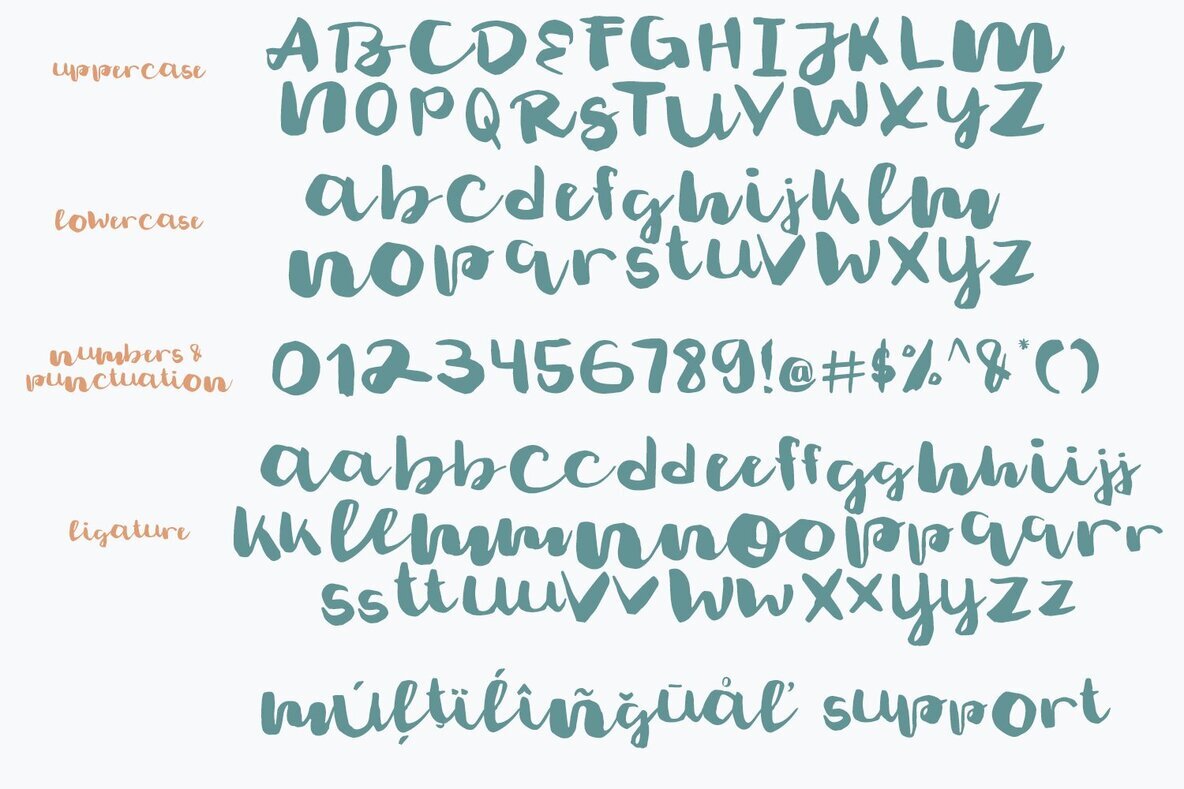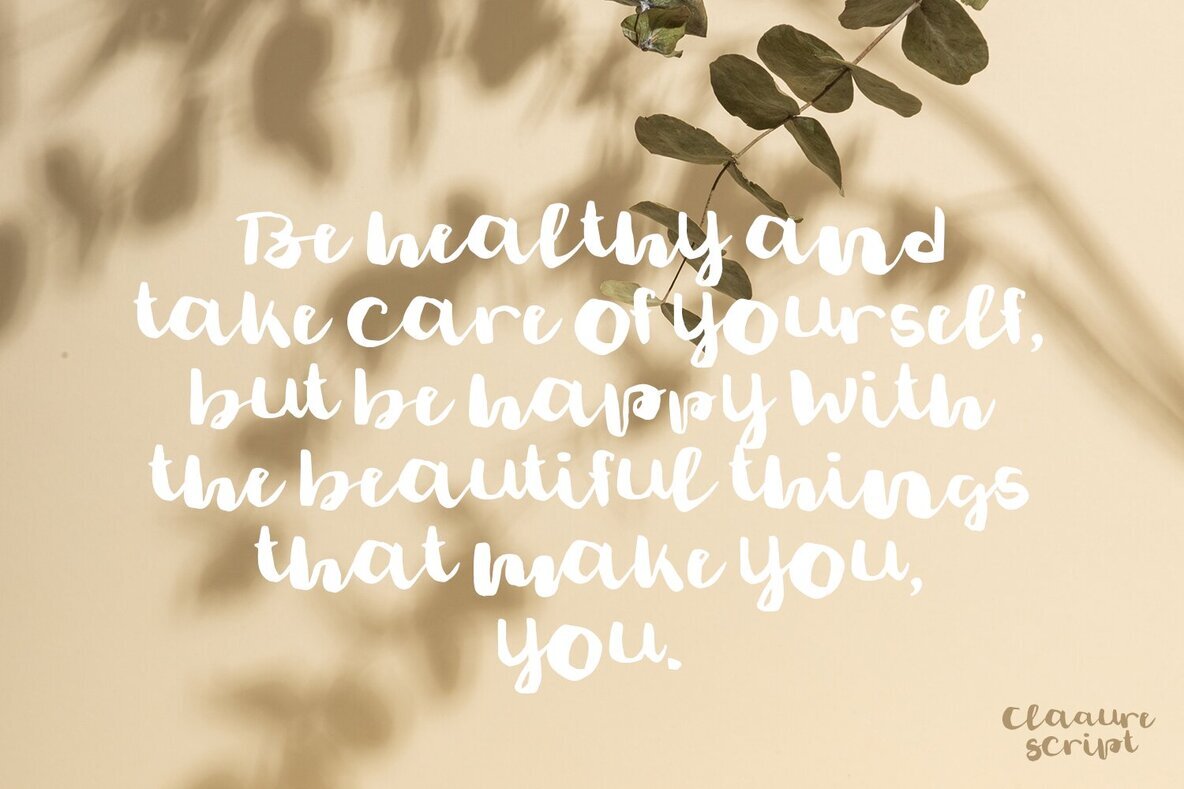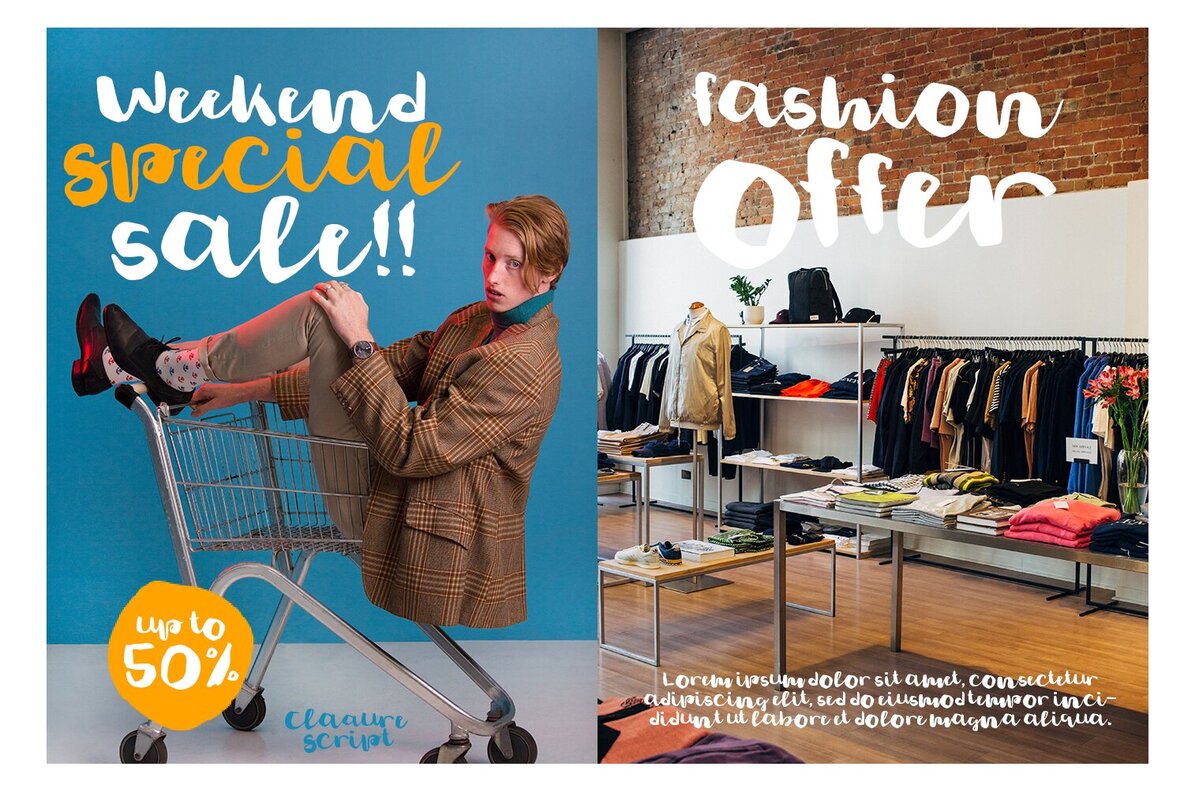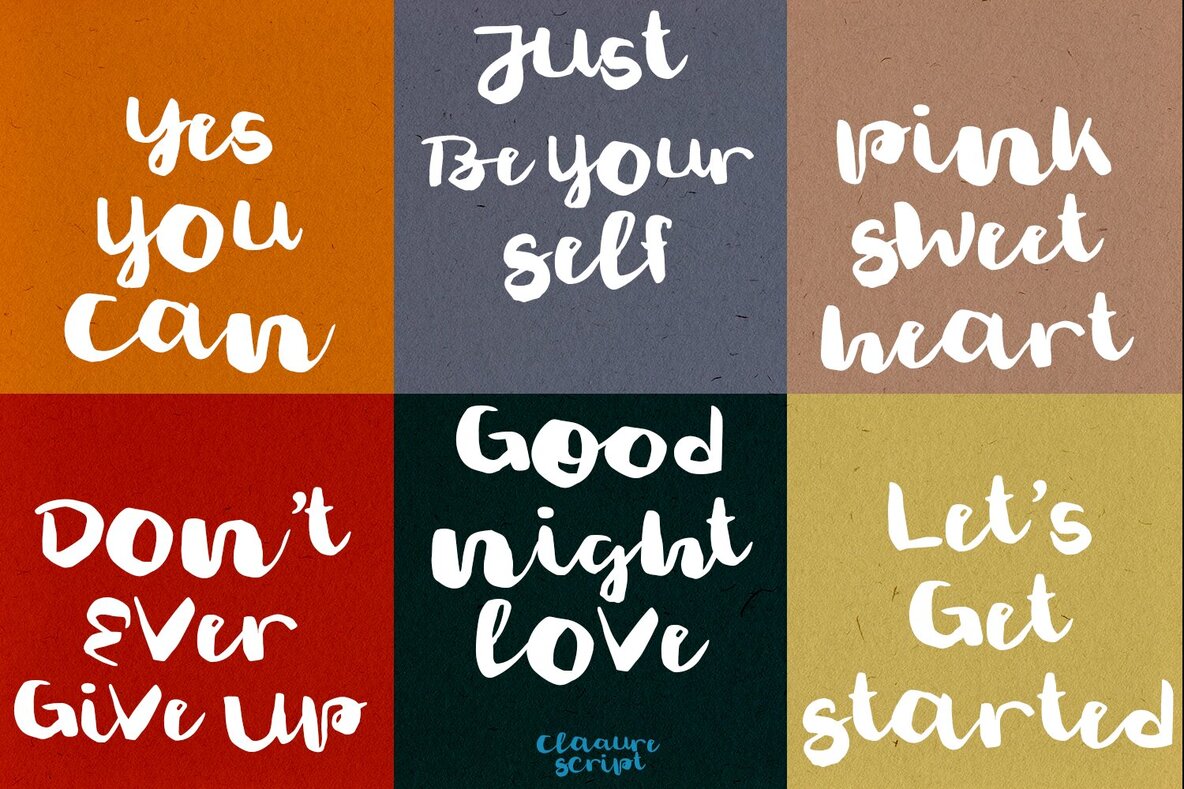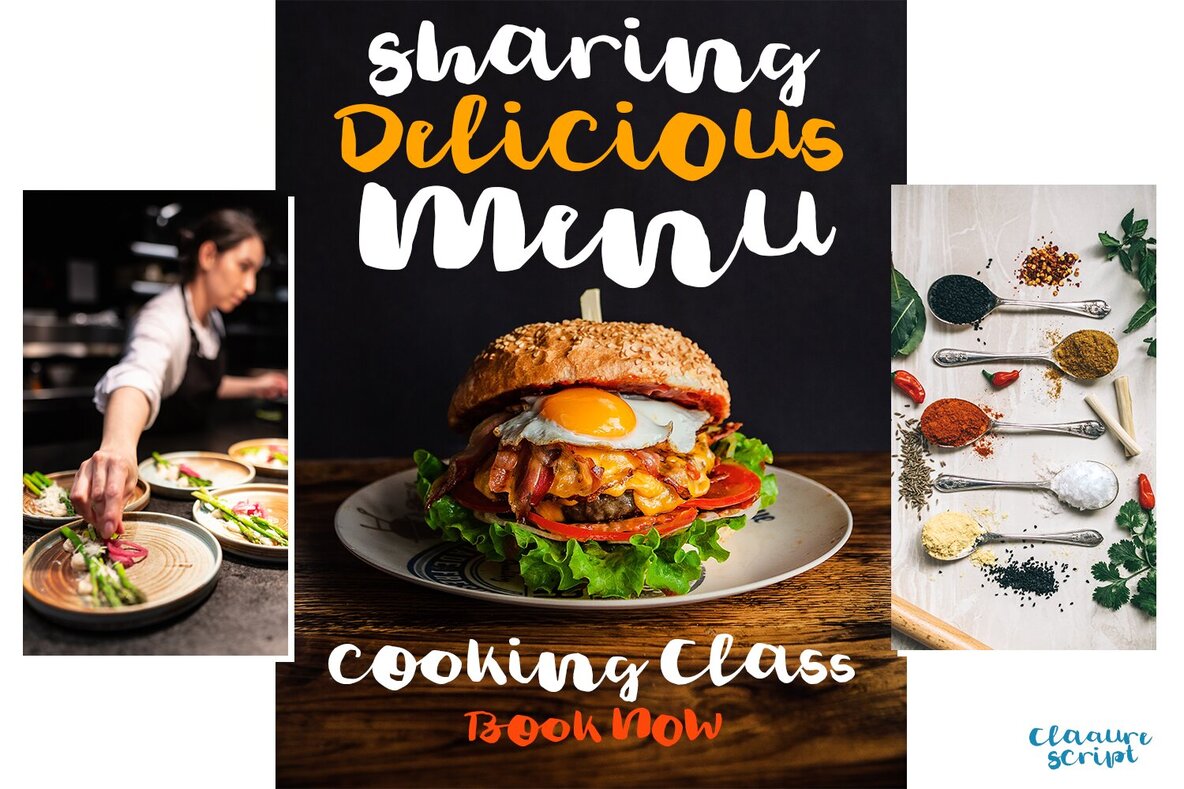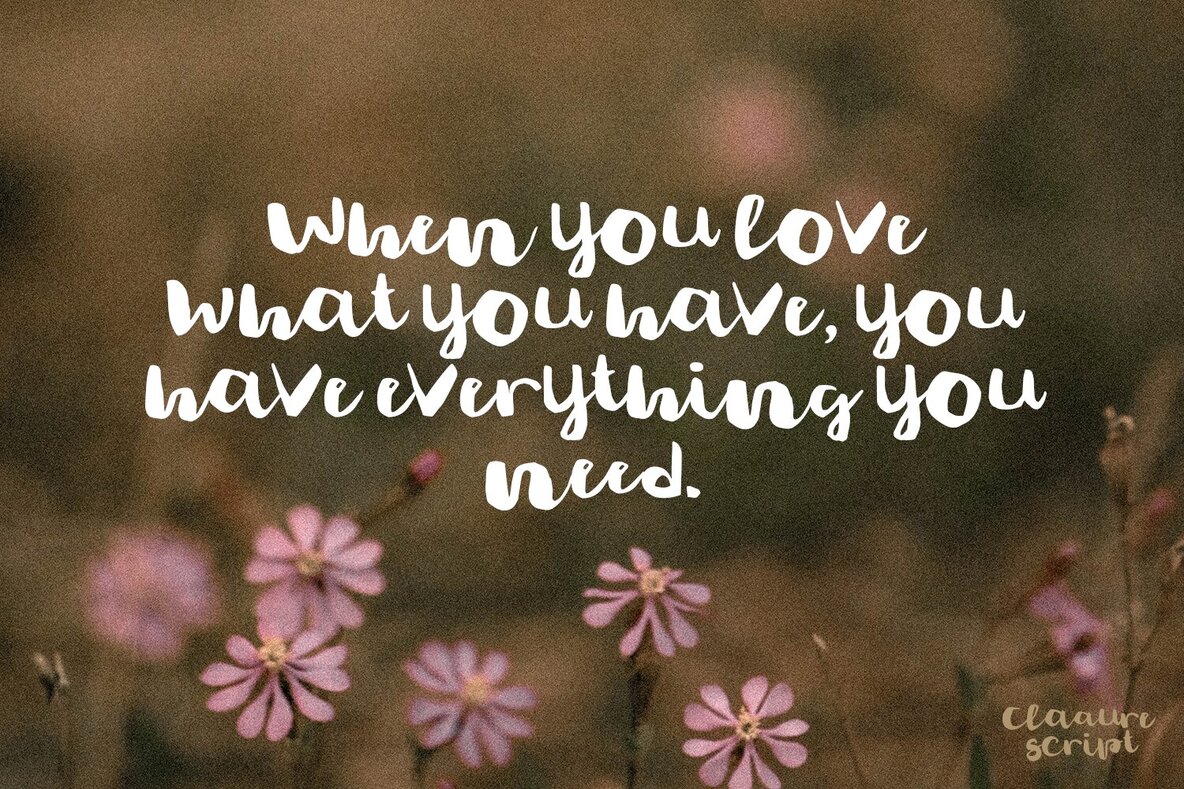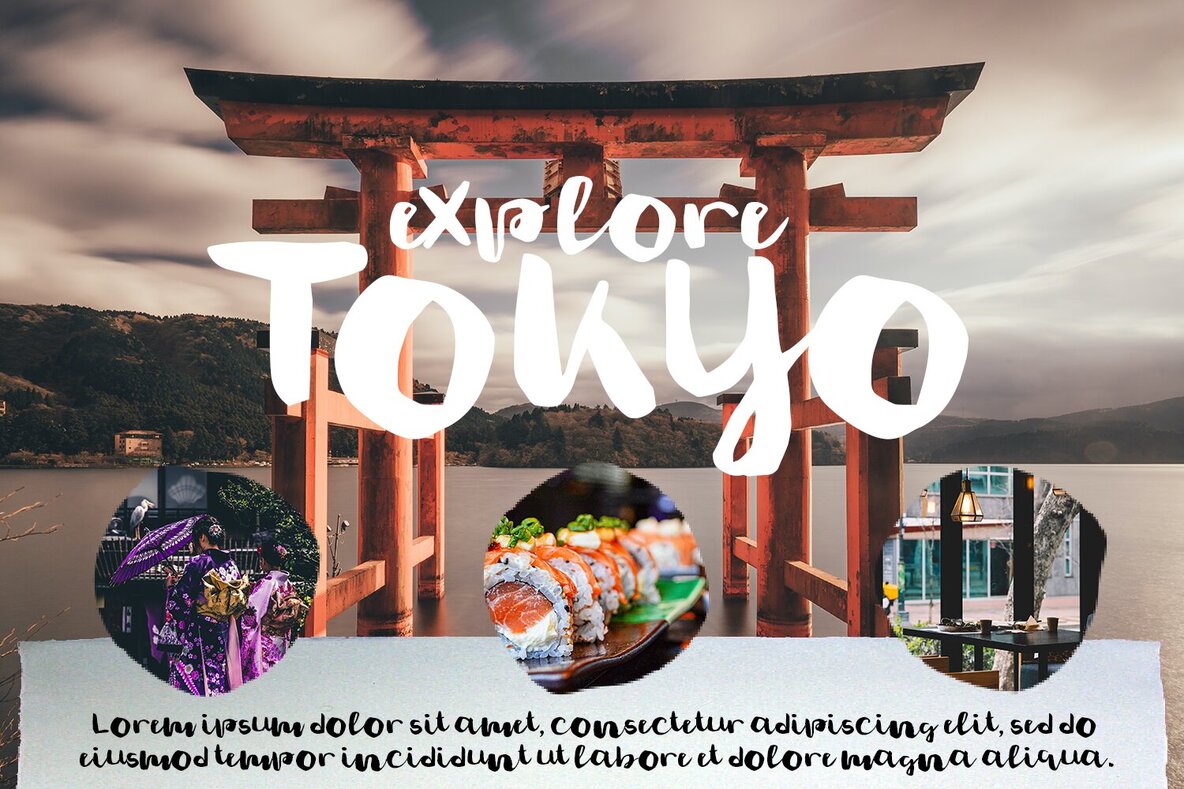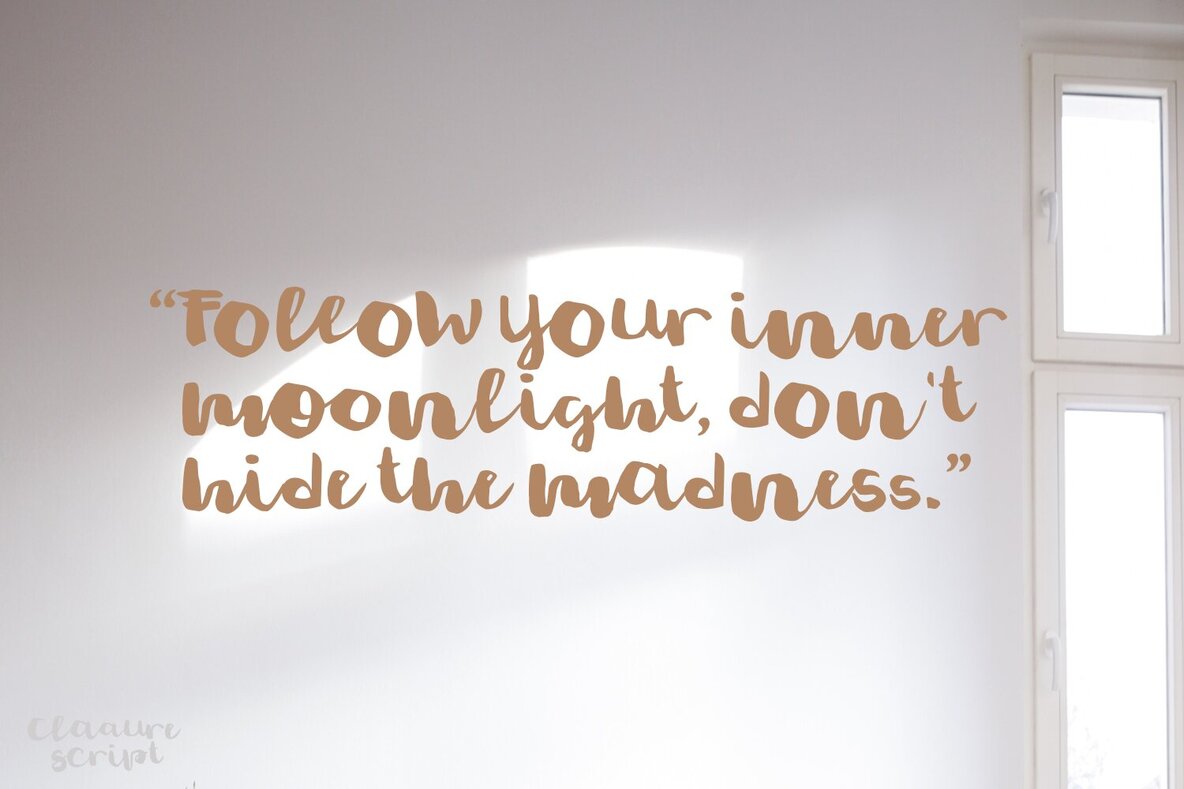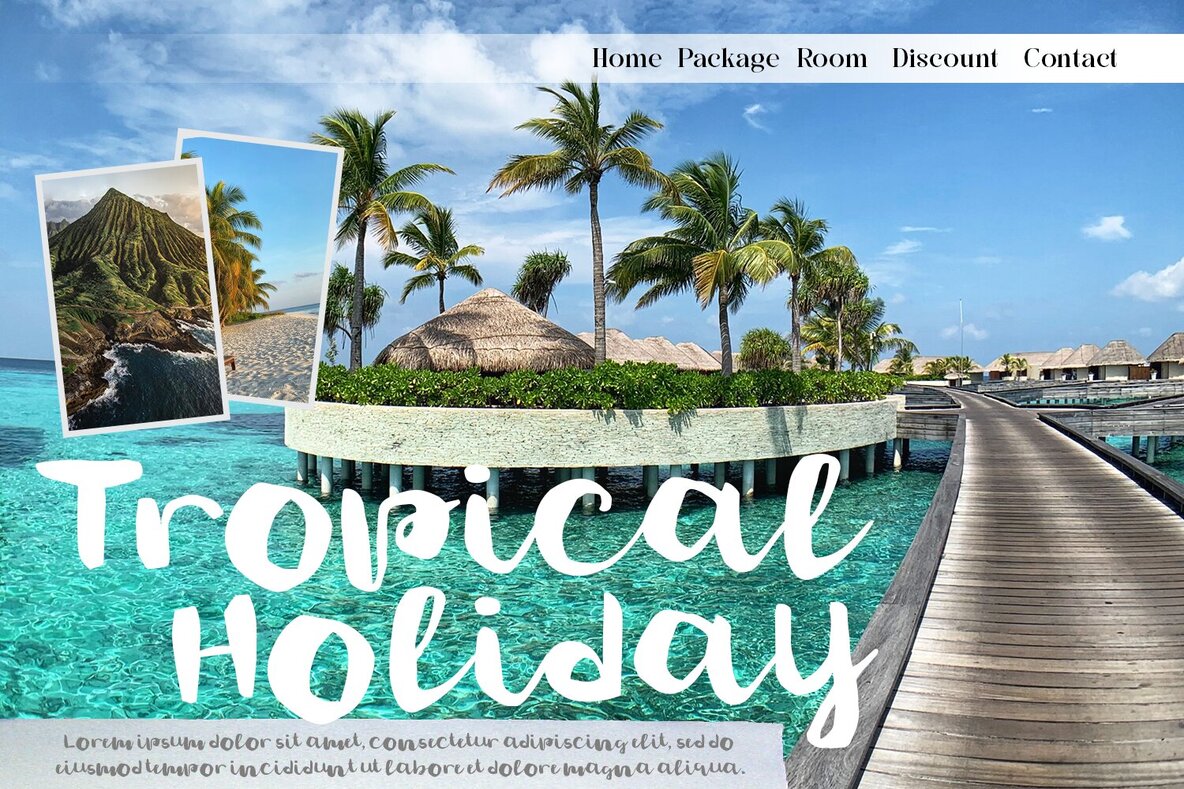
Claaure Script Font
Claaure
Get creative with Claaure, a realistic brush script font! Download Claaure today and add a special touch to all your design projects!